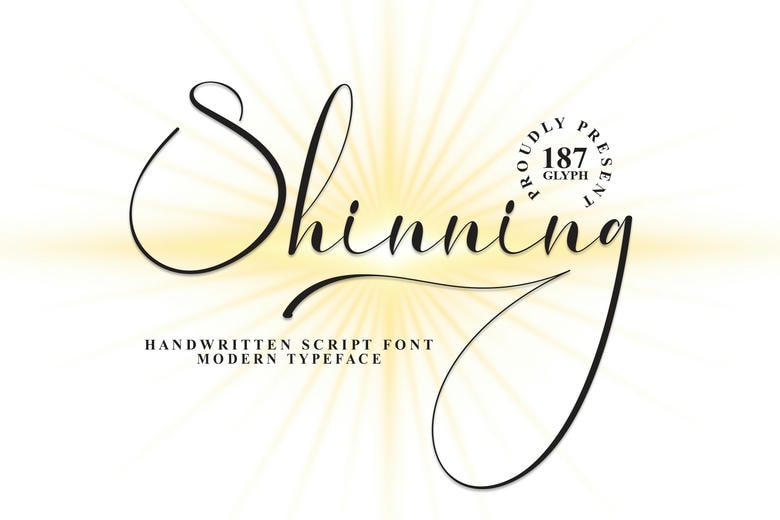
Shinning Font
Shinning Font offers creative products designed just for you. Our fonts will give your projects a unique touch. The latest styles are great for wall displays, wedding invitations, social media logos, ads, packaging, product designs, labels, photography, watermarks, stationery, and any project that needs elegant handwriting.
Shinning Handwritten Script Font